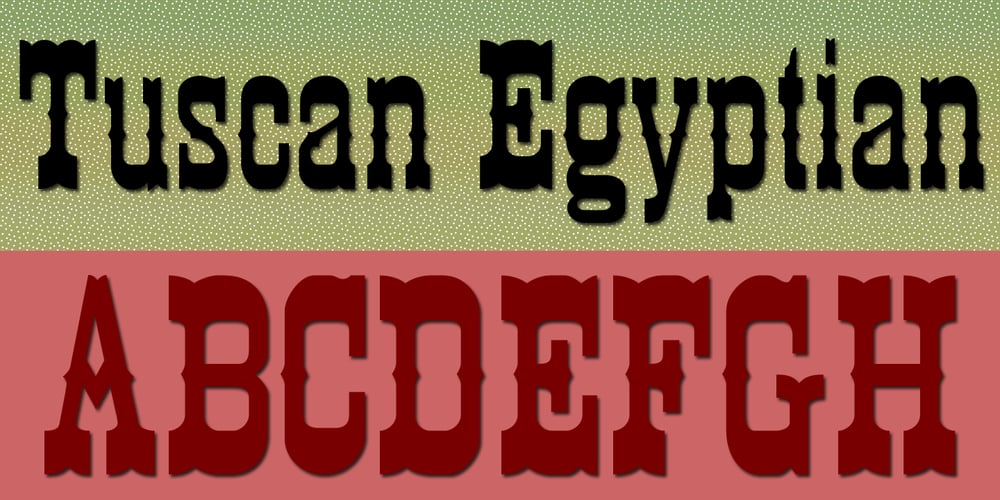
Tuscan Egyptian
Tuscan Egyptian font
Tuscan Egyptian Font Family was designed by Jordan Davies and published by Wooden Type Fonts. Tuscan Egyptian contains 1 styles and family package options. A revival of one of the popular wooden type fonts of the 19th century. Suitable for posters and display applications.